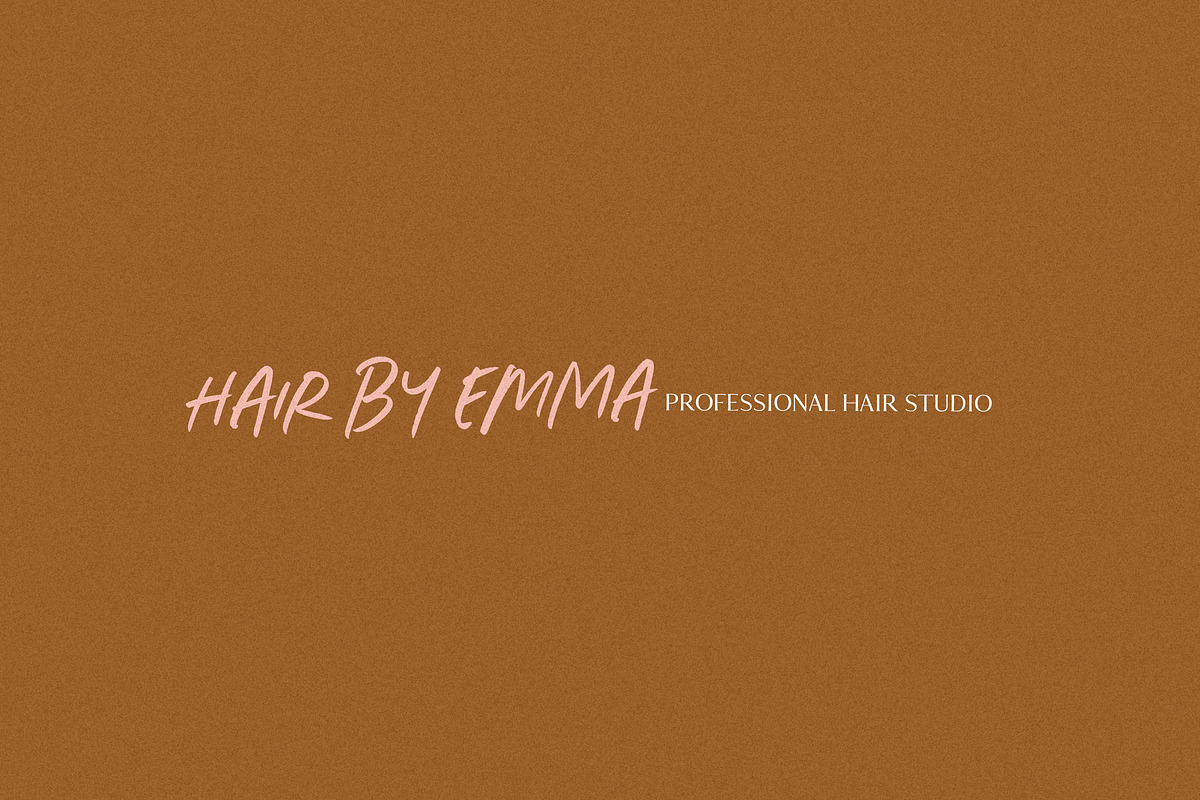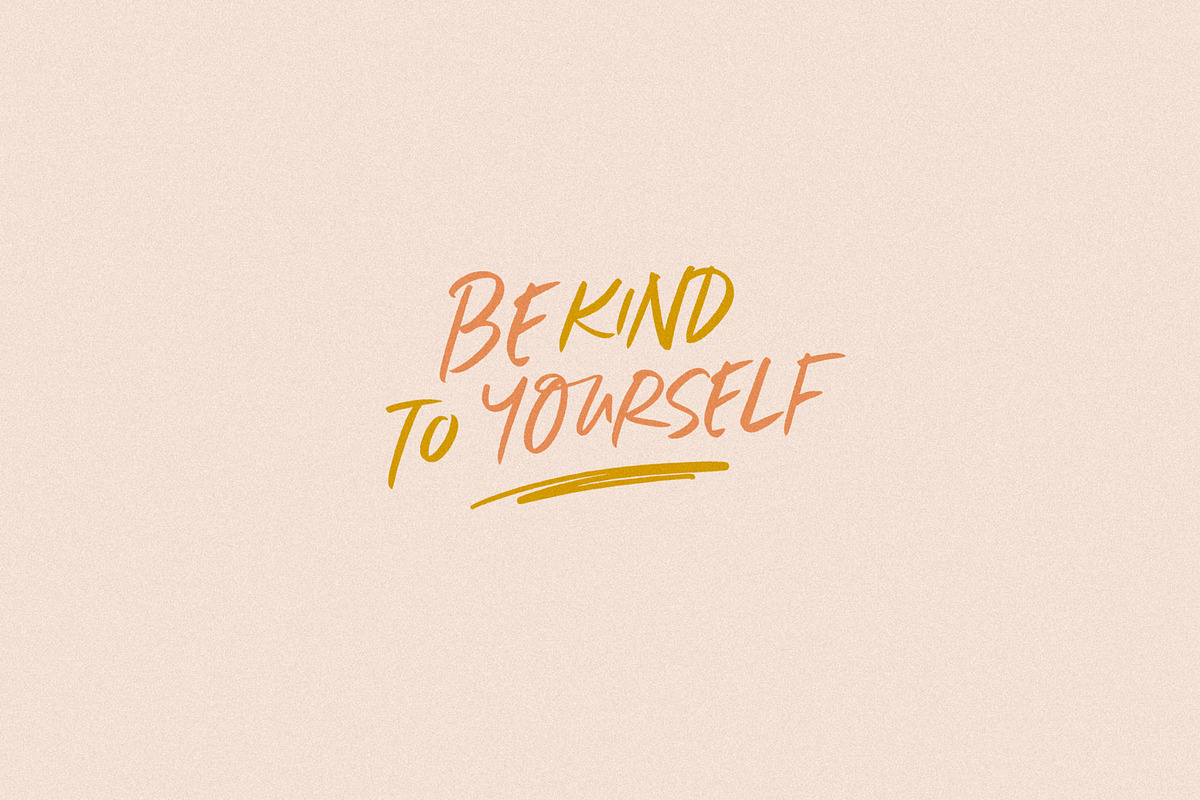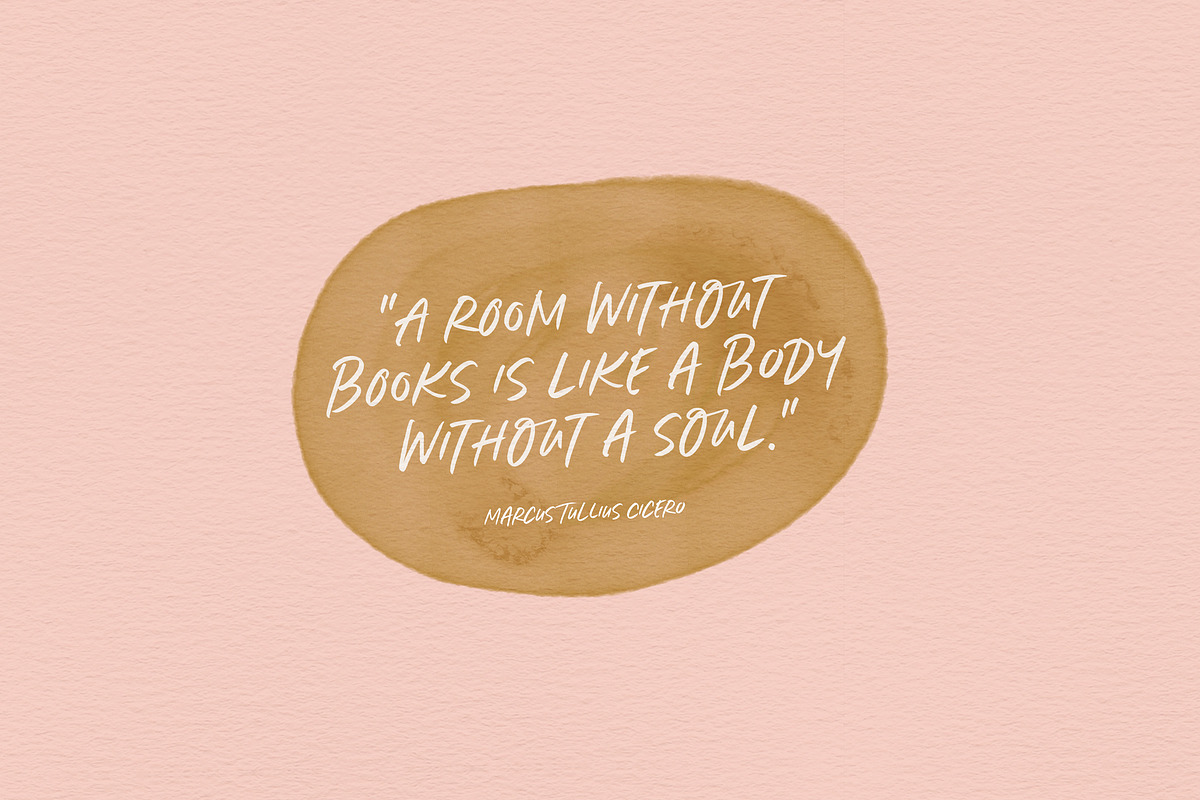
Marshmallow Hot Chocolate is a super-casual, super-versatile all caps font you’ve been looking for! Perfect for making a statement – use it in quotes, punchy headers, posters, flyer design, packaging, in your illustrations that need legible handwritten captions – and so much more. Great at small and large sizes – play with the letter spacing to get different looks and effects.